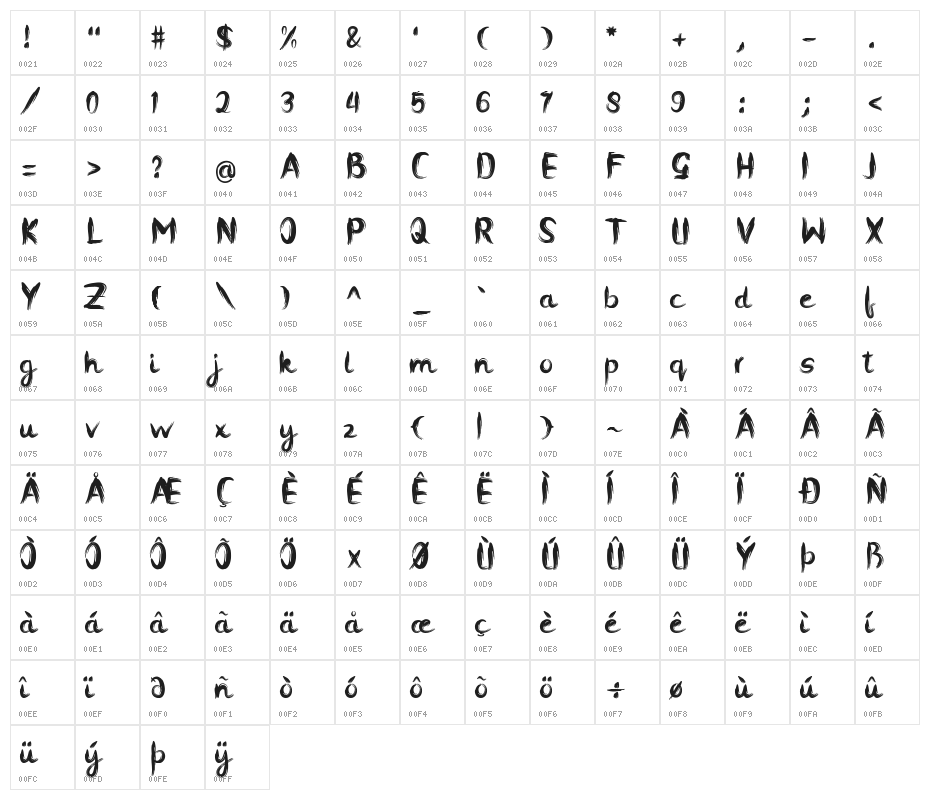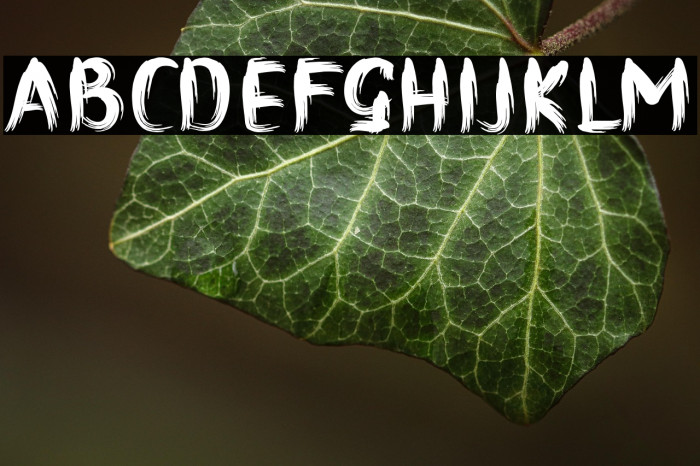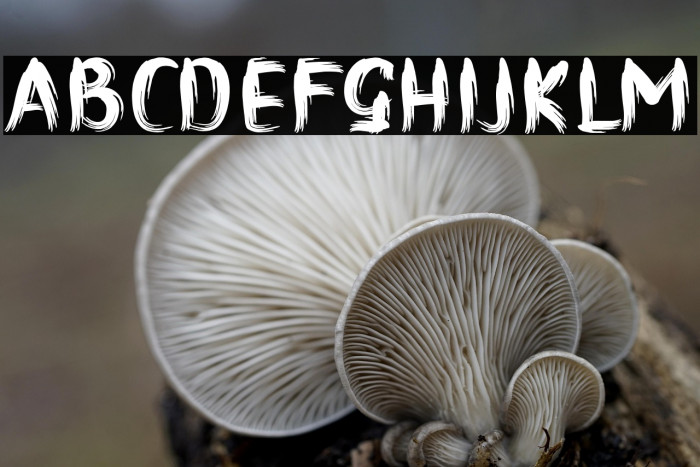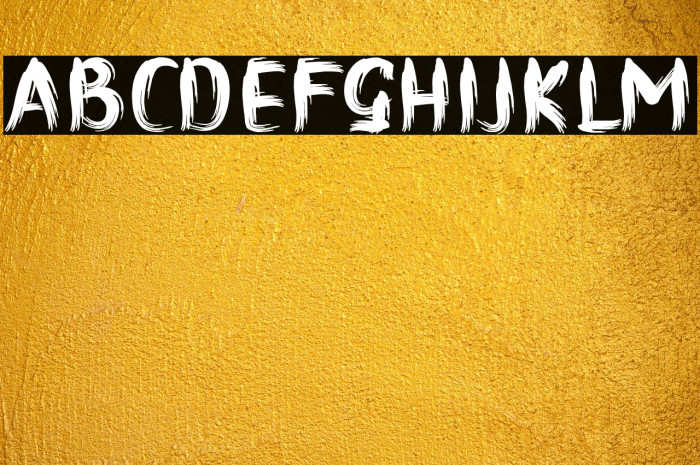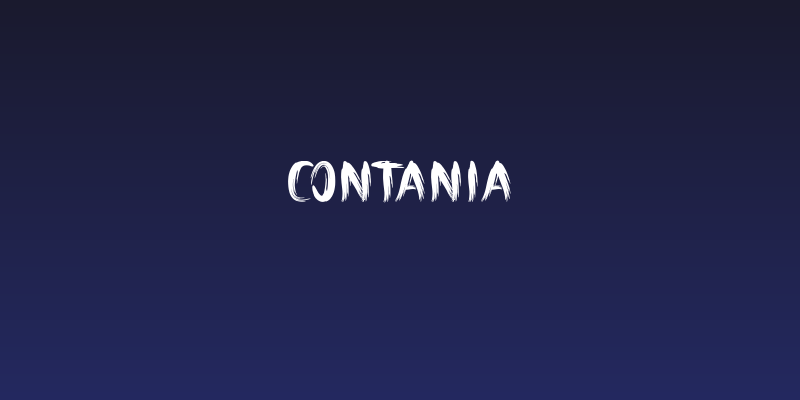
contania Font
contania Description
This font features a bold and expressive brushstroke style, giving it a dynamic and artistic appearance. The characters are crafted with a sense of movement, as if painted with a swift, confident hand. The strokes vary in thickness, creating a high contrast that adds to its dramatic flair. The uppercase and lowercase letters maintain a consistent style, while the numbers and special characters complement the overall aesthetic. This font is ideal for projects that require a bold statement, such as posters, branding, and creative designs.
| Proposed Projects | Ideal for posters, branding, creative designs, and any project needing a bold statement. |